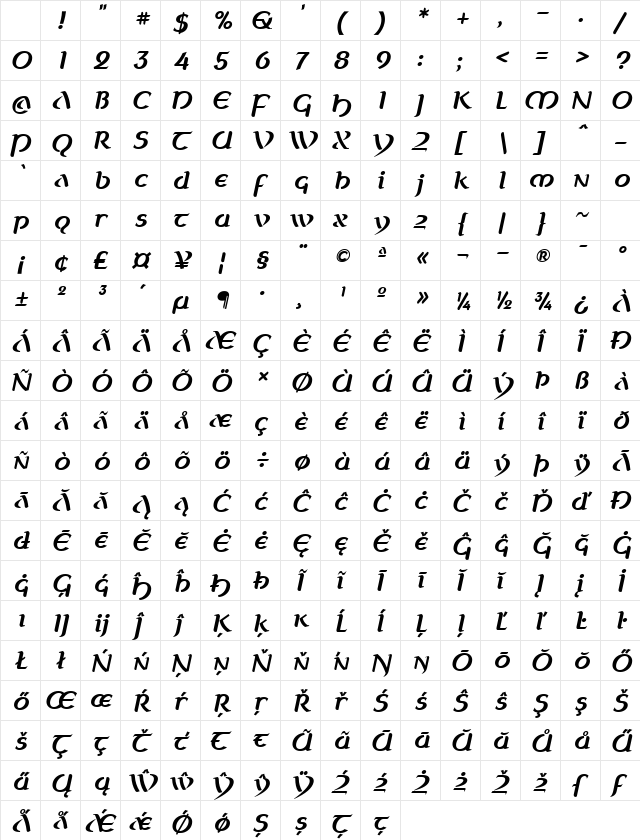
Celtica is a composed and adaptable typeface that performs quietly and consistently across a wide range of design contexts. The slanted form adds forward momentum and visual energy. Its bold stroke weight gives it real presence on the page.
Who designed the Celtica Bold Oblique font?